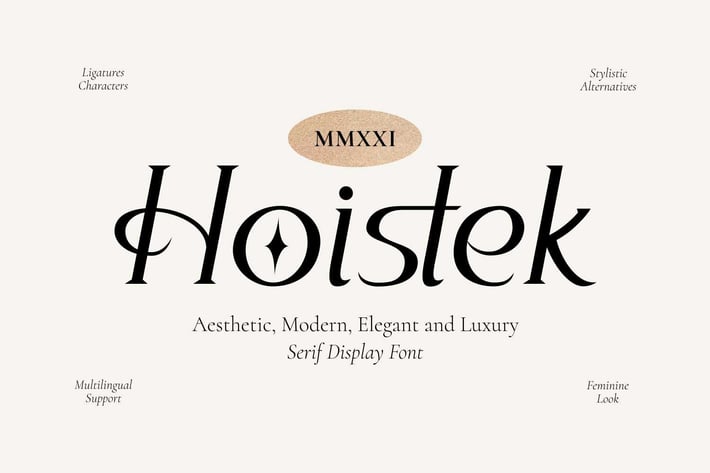
Hoistek - Aesthetic font
FypeCo
Hoistek is aesthetic serif display font with alternatives and ligatures that create stunning logos, quotes, posts, blog posts. branding projects, magazine imagery, wedding invitations, and much more.
Font Features
- Alternatives